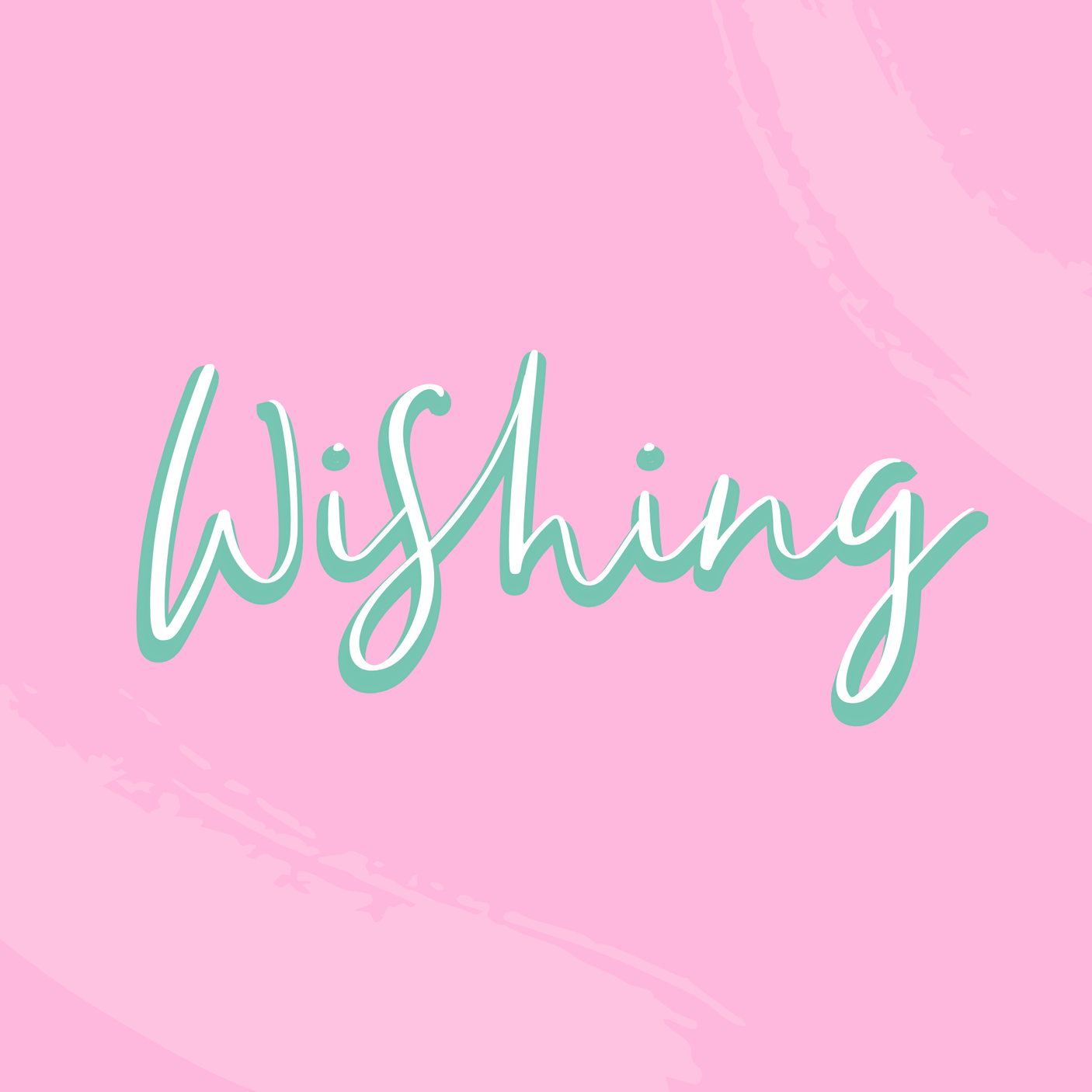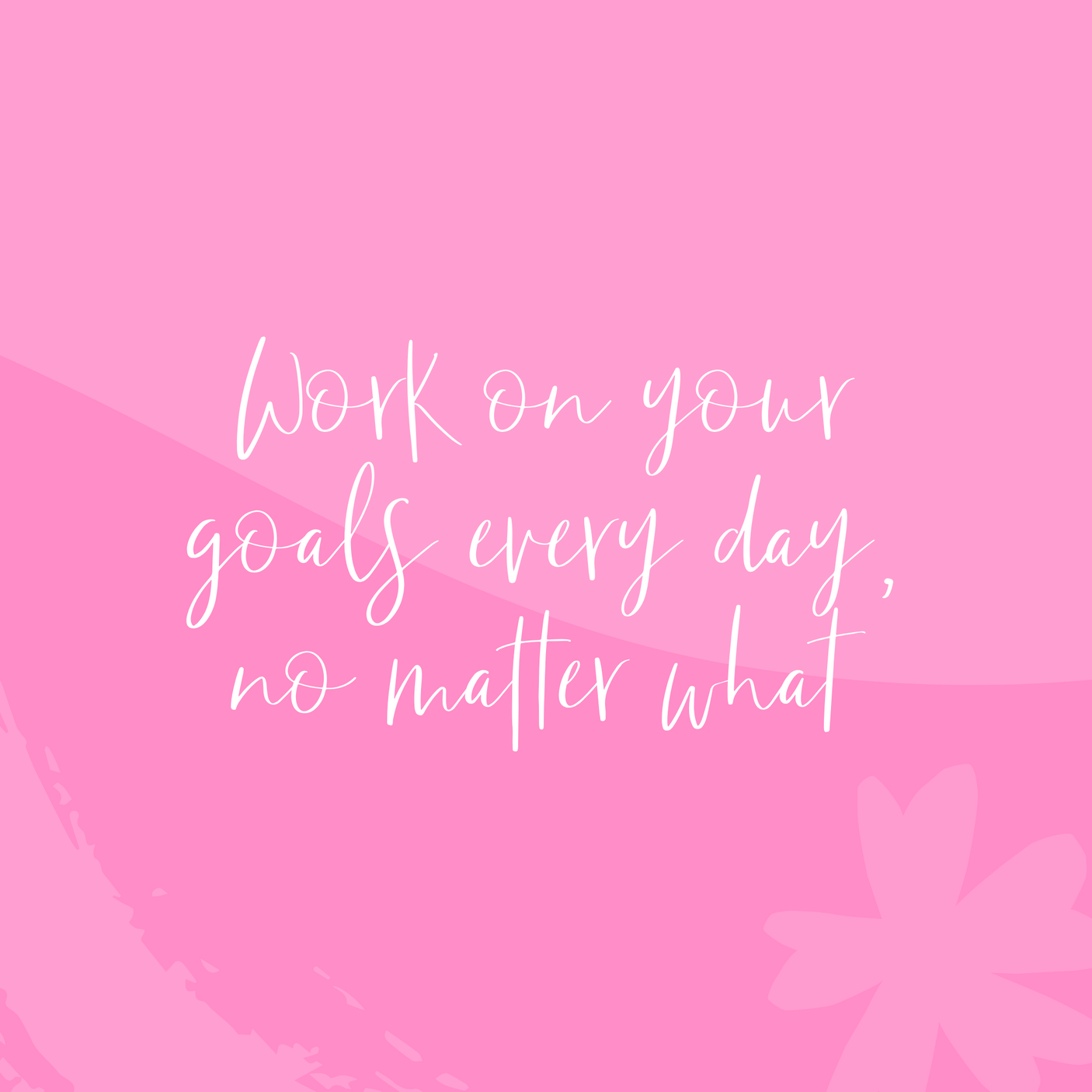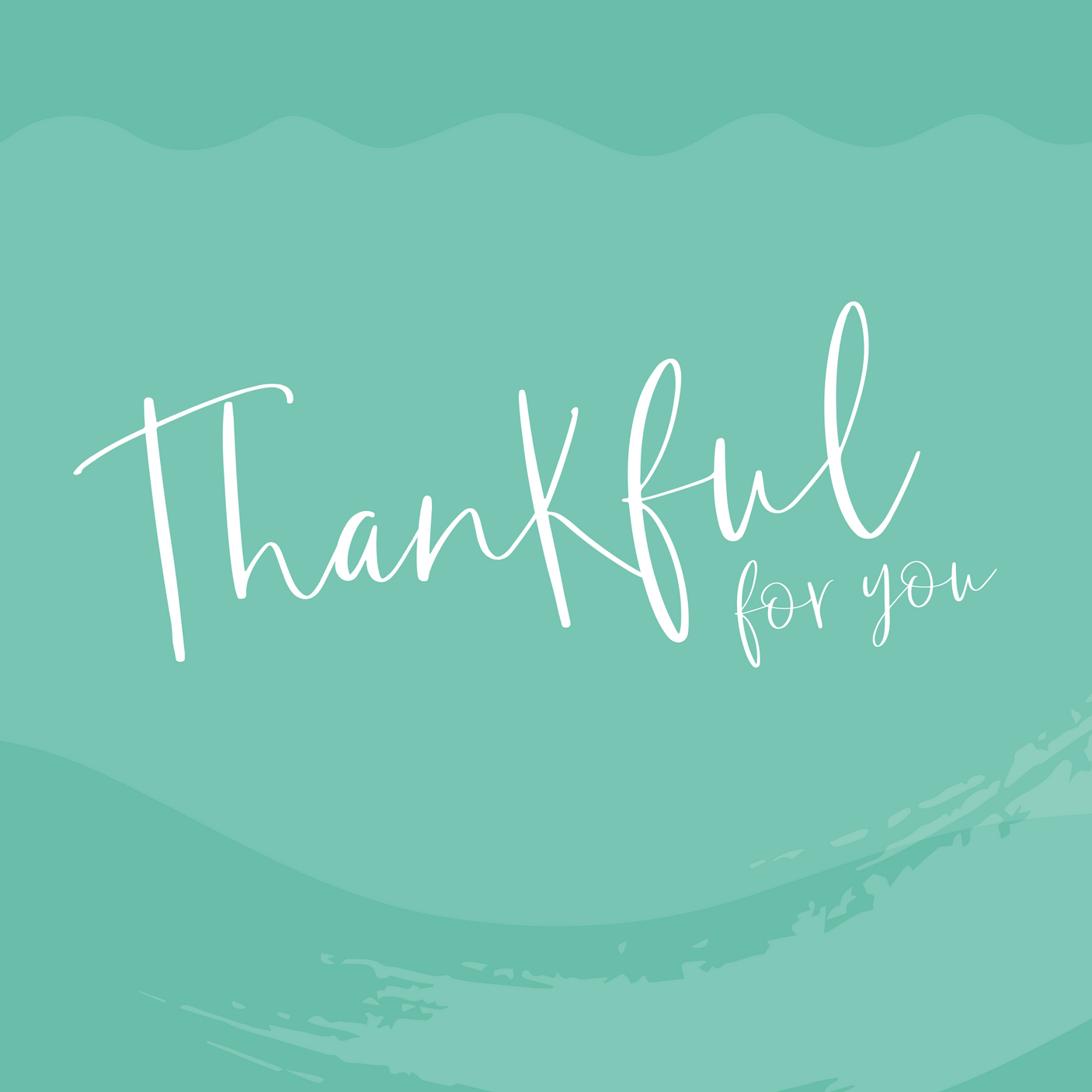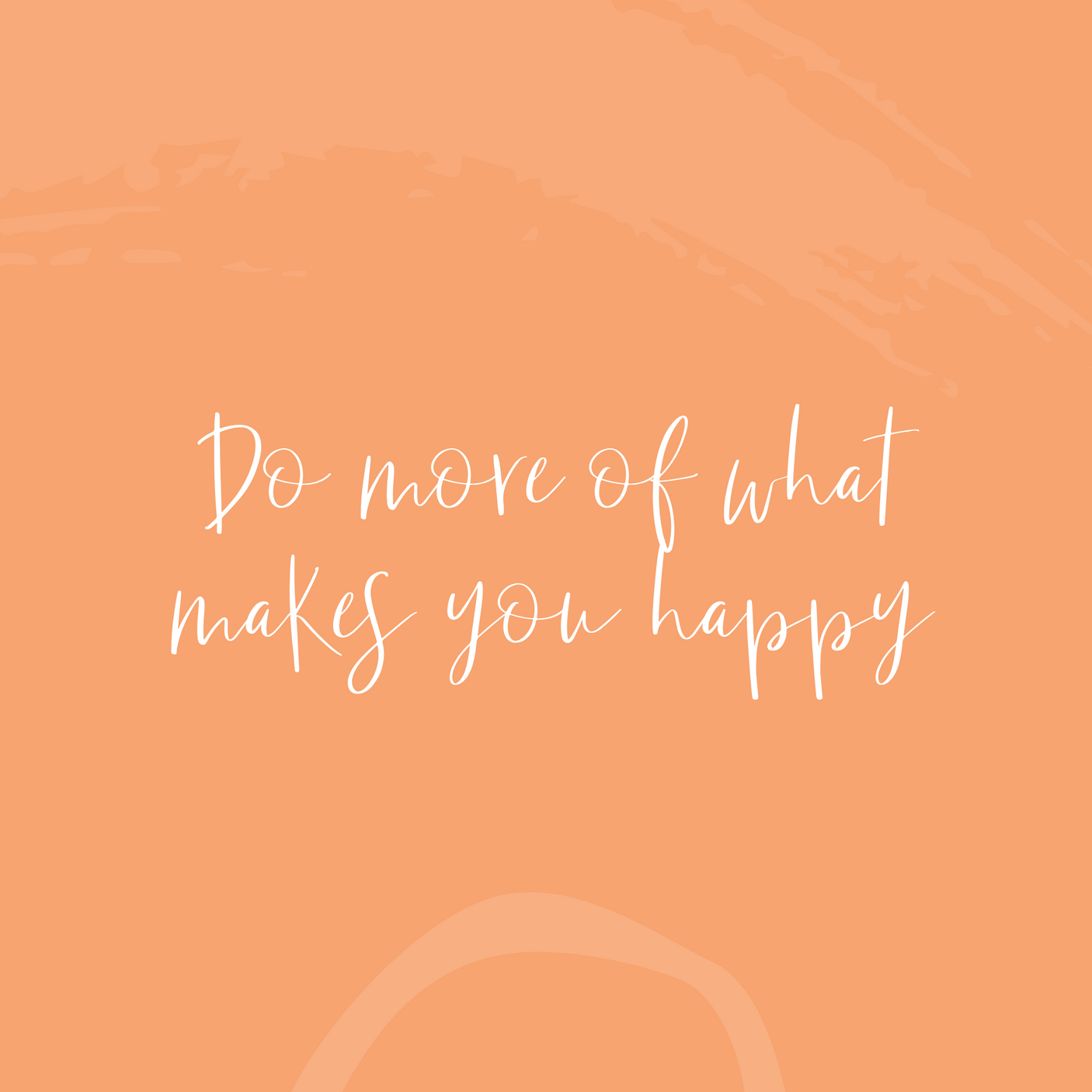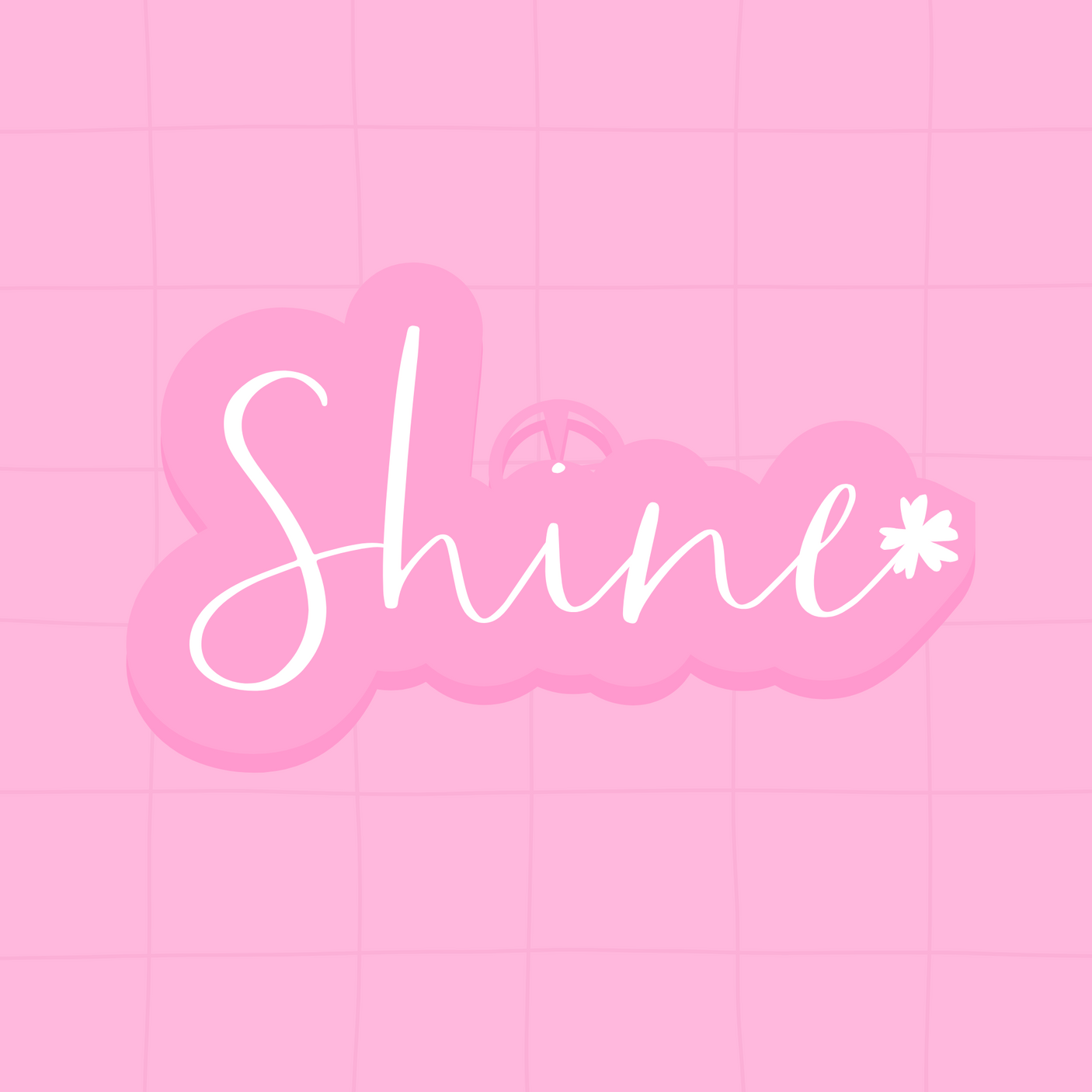
Wishing Font
Add a touch of whimsy to your designs with Wishing, a quirky handwritten script font that blends modern calligraphy with playful charm. Featuring smooth, flowing lines and unique character details, Wishing is perfect for creating heartfelt, stylish designs that stand out.
Ideal for logos, invitations, social media graphics, product packaging and more, this versatile font brings a personal, hand-crafted feel to any project. Whether you're designing for products, branding, or just for fun, Wishing is the perfect way to make your designs unforgettable.